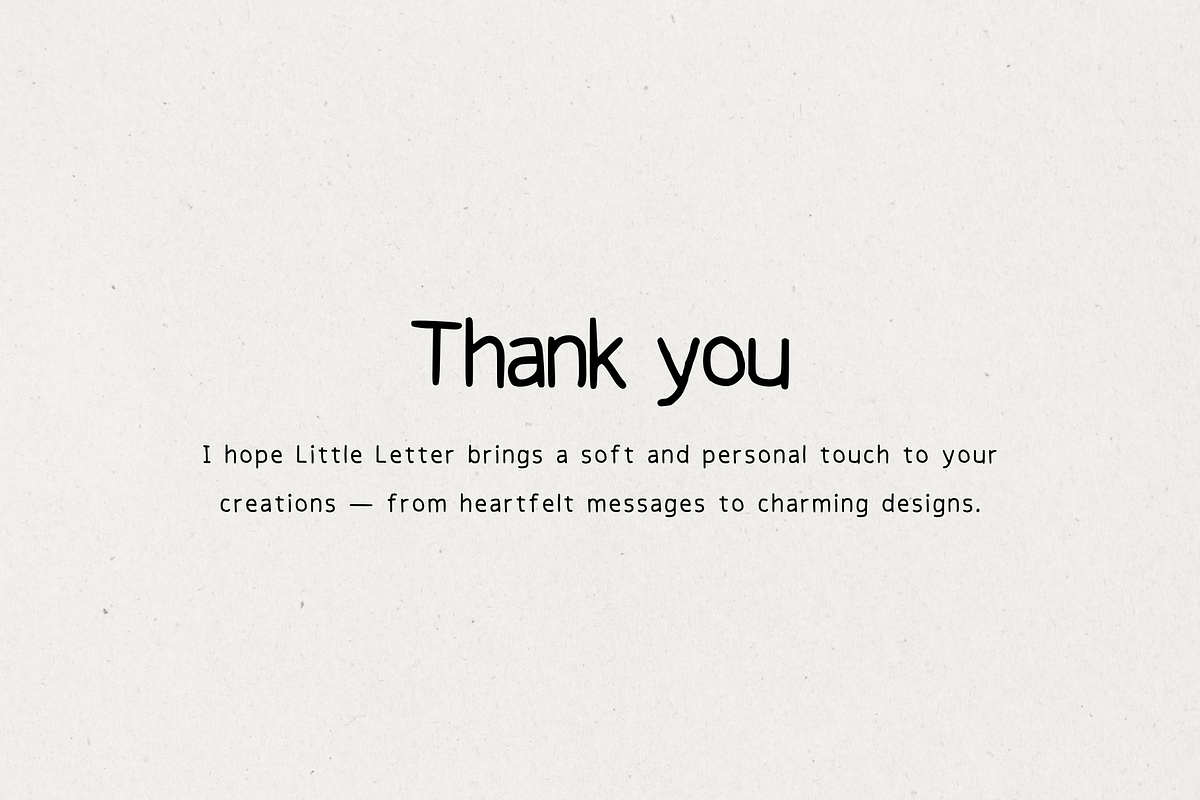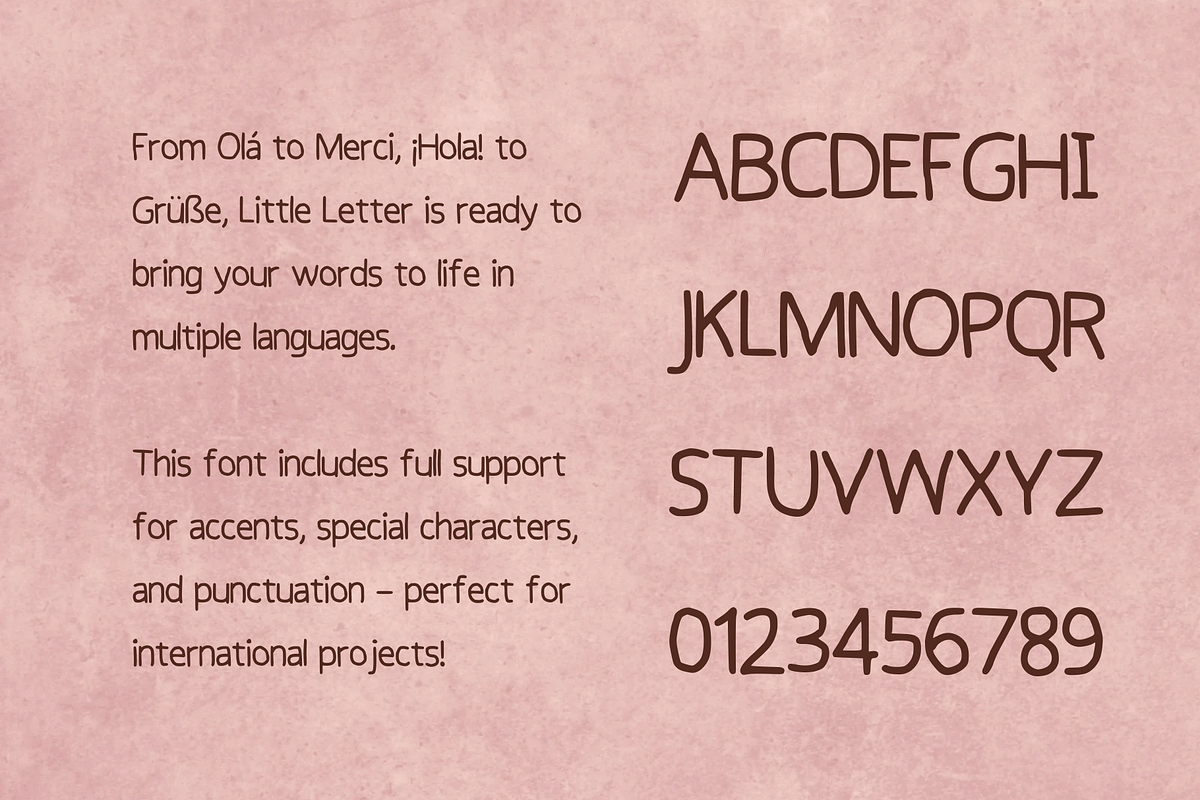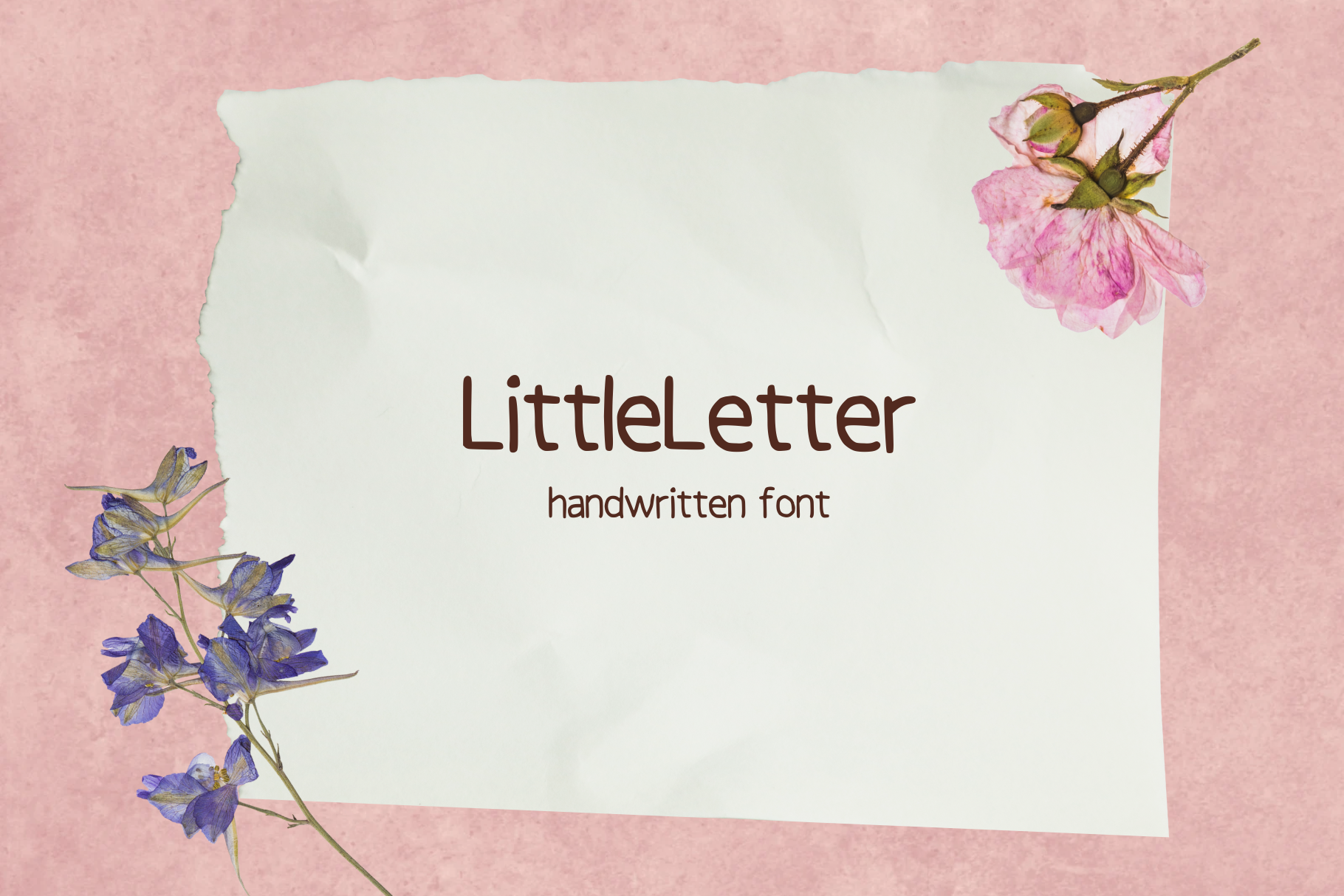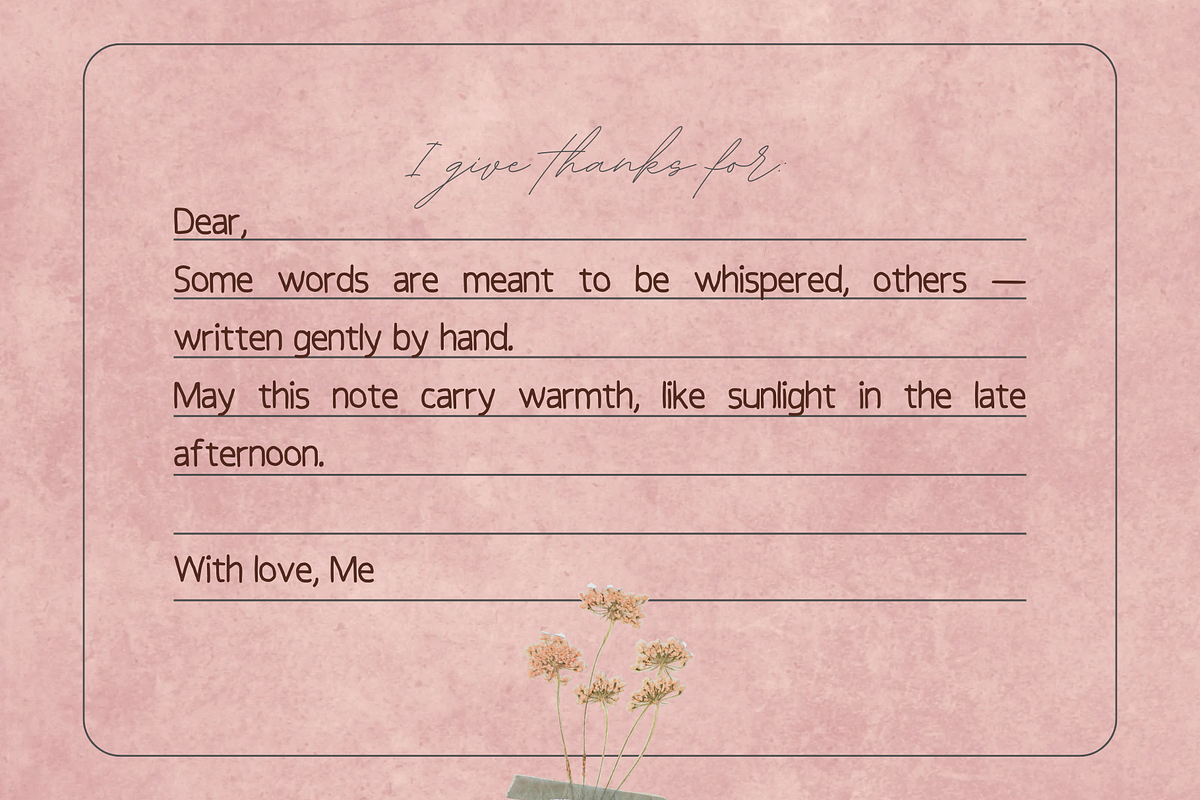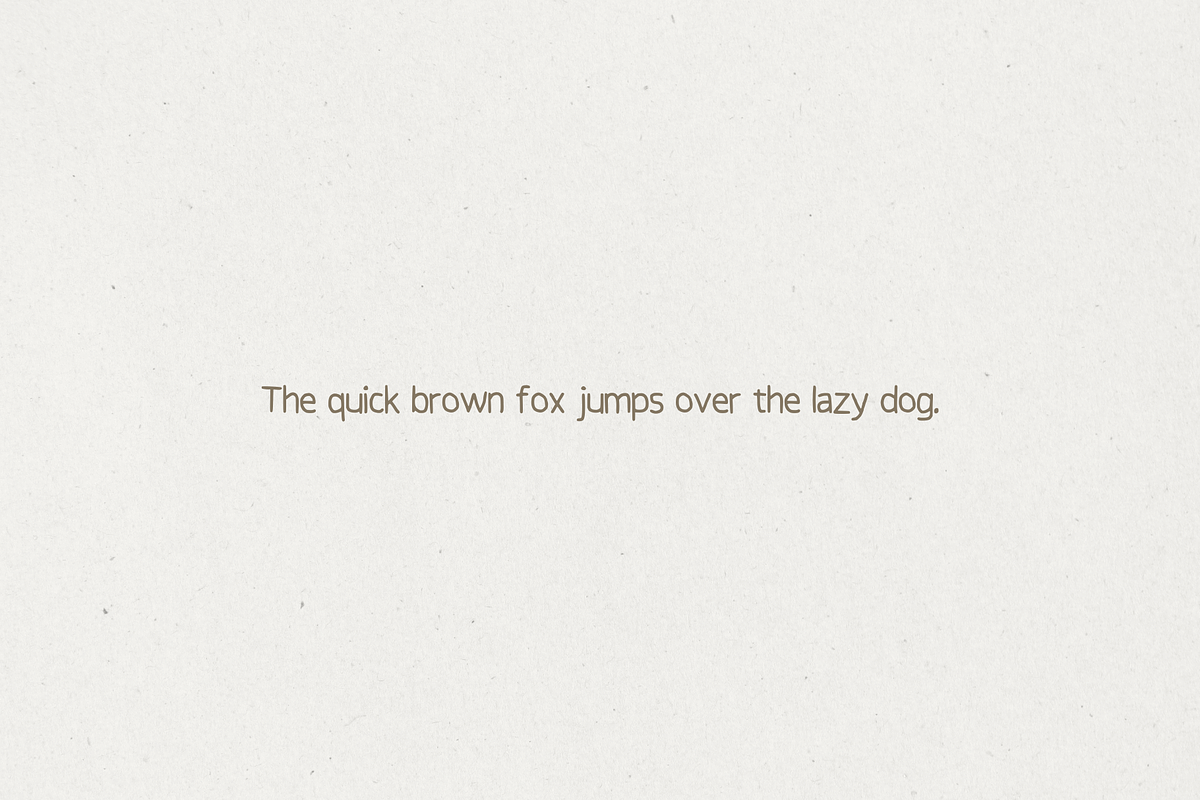
LittleLetter - Handwritten Font
LittleLetter – a cute and playful handwritten font that adds a personal, heartwarming touch to any design. Whether you're crafting logos, social media posts, wedding invitations, or journaling in Procreate, LittleLetter brings charm and authenticity to your work.
With smooth strokes and a friendly personality, this font is perfect for: ✦ Branding & logo design ✦ Instagram & Pinterest graphics ✦ Printable quotes & wall art ✦ Wedding & baby shower invitations ✦ Greeting cards & scrapbooking ✦ Canva and Procreate projects